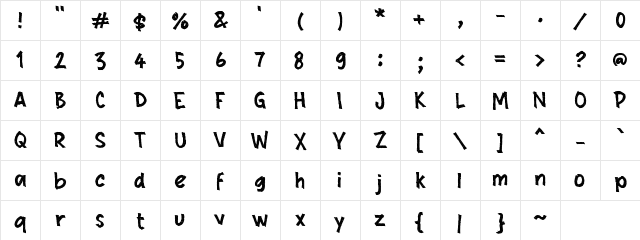
h Halfroad Regular Free Font
h Halfroad Regular
Designer: Wahyu Eka Prasetya
Design Context for h Halfroad
h Halfroad is a composed and adaptable typeface that performs quietly and consistently across a wide range of design contexts.